Friendly fonts are like the welcoming decor of a home—they invite your audience in and make them feel at ease. Whether you’re crafting a website, designing a poster, or setting up a business card, picking the right font is crucial in creating an atmosphere that resonates warmth and accessibility. This article showcases 20 of the friendliest fonts that can transform your designs from standard to inviting. Each font has been chosen for its ability to add a touch of personality and charm to your projects.
1. Amatic SC
Why it is Friendliest font: Amatic SC’s quirky, hand-drawn feel imbues designs with a personal touch, making it approachable and perfect for informal, creative projects like children’s books or craft labels.
2. Architects Daughter
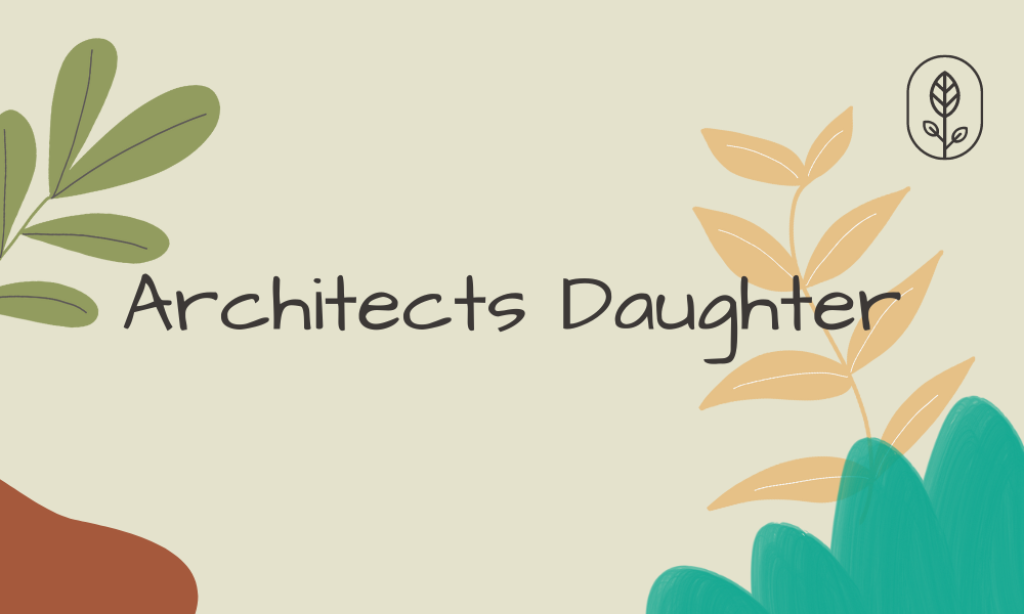
Why it is Friendliest font: Its structured yet casual look gives a touch of personality and approachability, ideal for educational materials or DIY project instructions.
3. Canva Sans
Why it is Friendliest font: Its straightforward and clear appearance makes it universally readable, perfect for any design that prioritizes clarity and a friendly tone.
4. Caveat
Why it is Friendliest font: Caveat offers a lively, informal vibe with its quick, handwritten strokes, suitable for inviting messages in casual settings.
5. Courgette
Why it is Friendliest font: Courgette’s rounded, script style has a friendly and warm feel, great for food packaging or restaurant menus.
6. Courier PS
Why it is Friendliest font: It brings a vintage, nostalgic charm, reminiscent of personal letters typed on a typewriter, fostering a sense of familiarity.
7. Elika Gorica
Why it is Friendliest font: Its unique letterforms provide a modern and fashionable look that’s still very welcoming and readable, great for boutique branding.
8. Goudy
Why it is Friendliest font: Goudy is traditional yet accessible, conveying reliability and warmth, and ideal for both digital and print media that require an air of professionalism.
9. Homemade Apple
Why it is Friendliest font: As its name suggests, Homemade Apple looks as if it was quickly jotted down with a sharpie, giving a very homemade and heartfelt touch to any design.
10. Isabella
Why it is Friendliest font: Its clean and elegant lines offer a modern yet soft appearance, suitable for designs that need to convey simplicity and sophistication.
11. Kalam
Why it is Friendliest font: Kalam’s fluid and expressive forms mimic personal handwriting, adding a human touch to digital communications.
12. Neue Machina
Why it is Friendliest font: Despite its modern and slightly industrial look, Neue Machina remains approachable through its clean and highly readable design.
13. Oleo Script
Why it is Friendliest font: Oleo Script has soft curves and a dynamic flow that make it feel personal and inviting, perfect for festive occasions.
14. Pacifico
Why it is Friendliest font: Pacifico’s laid-back style is perfect for designs that aim to be light-hearted and fun.
15. Permanent Marker
Why it is Friendliest font: It captures the spontaneity of someone scribbling with a marker, which can be very engaging and personable in casual designs.
16. Satisfy
Why it is Friendliest font: Satisfy combines calligraphic letterforms with casual styling, making it both sophisticated and accessible for invitations and personal blogs.
17. Shadows Into Light Two
Why it is Friendliest font: This font has all the charm of a handwritten note, making it perfect for personalized messages and intimate settings.
18. Silverfake
Why it is Friendliest font: Silverfake stands out with its unique, slightly retro appearance that adds character and warmth to headlines and logos.
19. Solway
Why it is Friendliest font: Solway’s sturdy, yet friendly appearance makes it ideal for text-heavy designs where readability is key.
20. Tropika
Why it is Friendliest font: Tropika’s playful and exotic design elements make it fantastic for designs aiming for a fun, vibrant feel, ideal for themes involving travel or leisure.